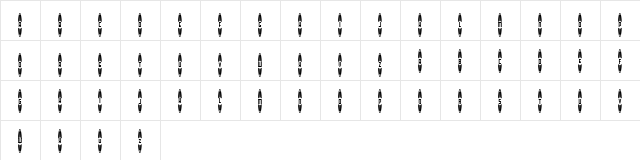
Jackrabbit's Bar & Grill Regular
Design Context for Jackrabbit's Bar & Grill Typeface
Jackrabbit's Bar & Grill is a composed and adaptable typeface that performs quietly and consistently across a wide range of design contexts.